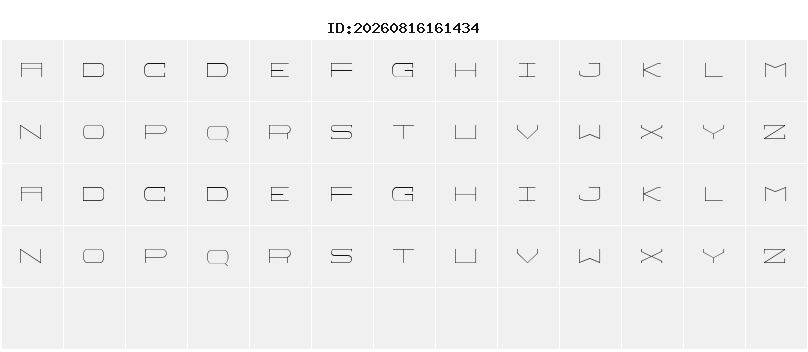
Sprawl Slim Preview
• Font Name: Sprawl Slim
• Full Font Name: Sprawl SlimRegular
About Sprawl Slim.ttf
Sprawl Slim.ttf is a modern, elegant sans-serif font designed for ultimate readability and visual harmony. Perfect for branding, headlines, web design, and print materials.